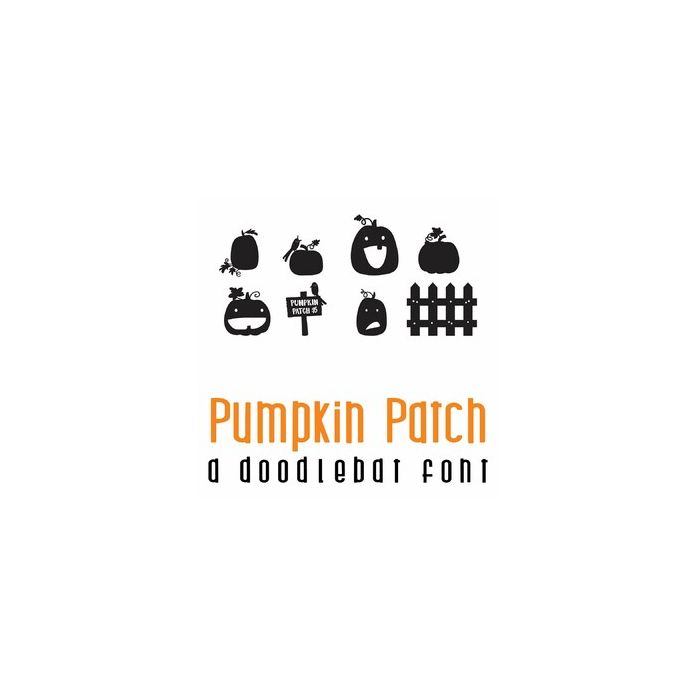
This fun doodlebat font features 26 pumpkin patch images. Perfect for Fall and Halloween use it to create cards, gifts, decor, crafts, scrap book pages, planner stickers and more!